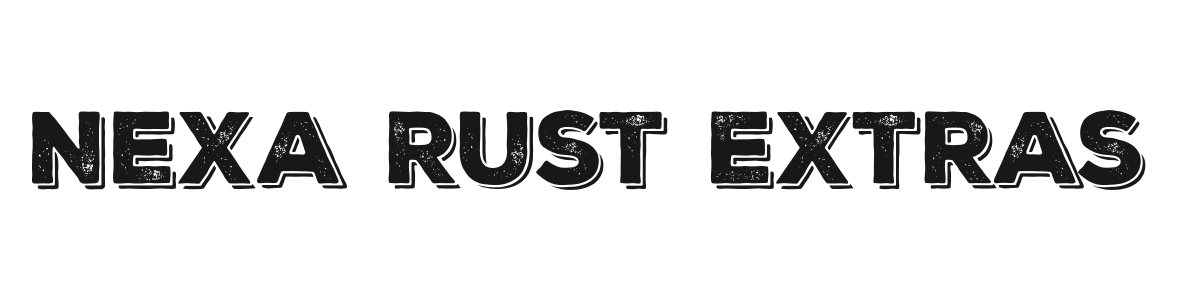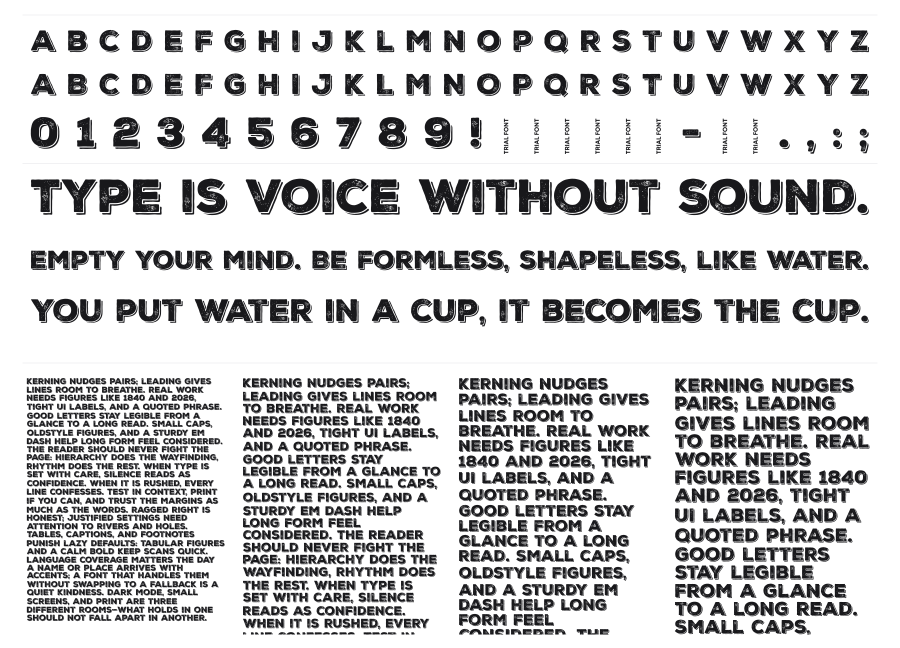
Nexa Rust Extras
Nexa Rust Extras is the distressed companion to Fontfabric's expansive Nexa Rust system, bringing a heavy, worn texture to a bold sans-serif structure. The eroded surface mimics aged letterpress printing, giving every character a gritty, tactile quality that reads as authentically handcrafted. Part of a broader multi-subfamily system that spans sans, slab, script, and handmade styles.